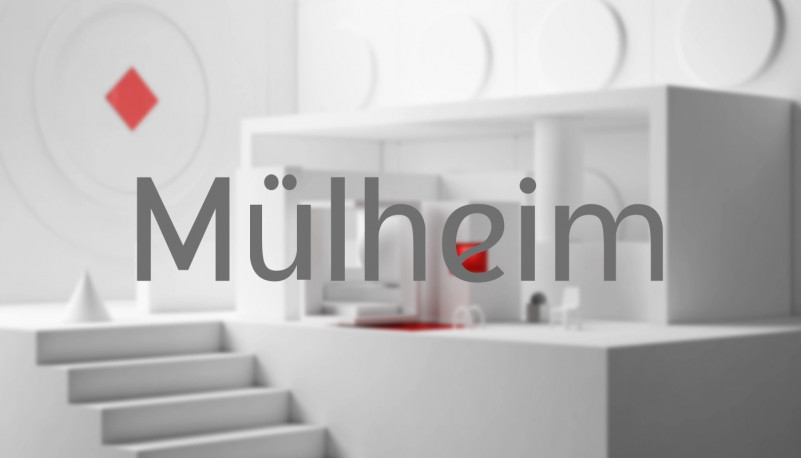
Mulheim Font
Mulheim Sans Serif Font, It is the ideal font for all your design requirements, such as branding, product packaging, or even just to add a touch of flair to your editorial work. This fine font features a contemporary design with a unique shape that will add elegance to any design. Incorporate Groovy Fonts into your designs right away!